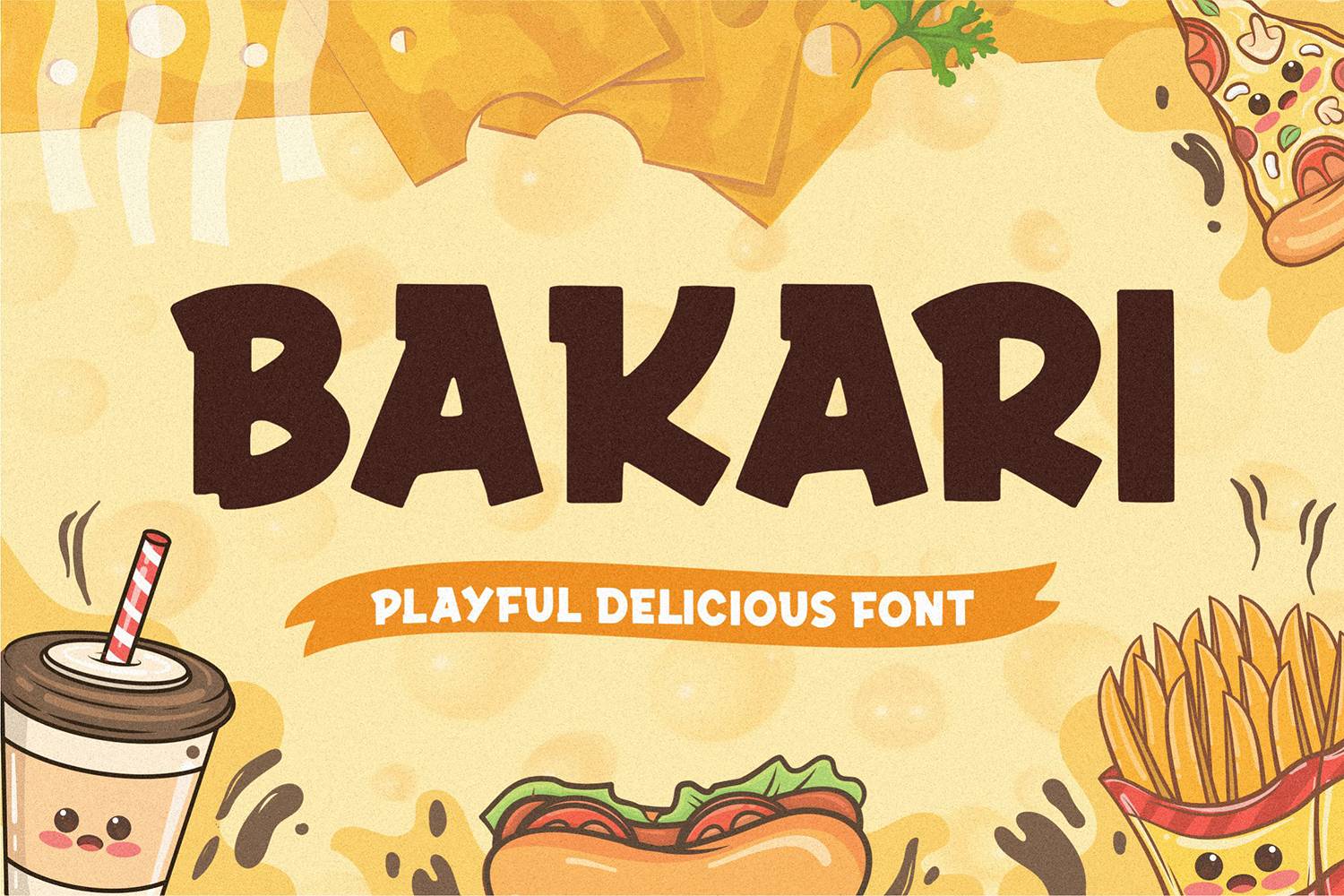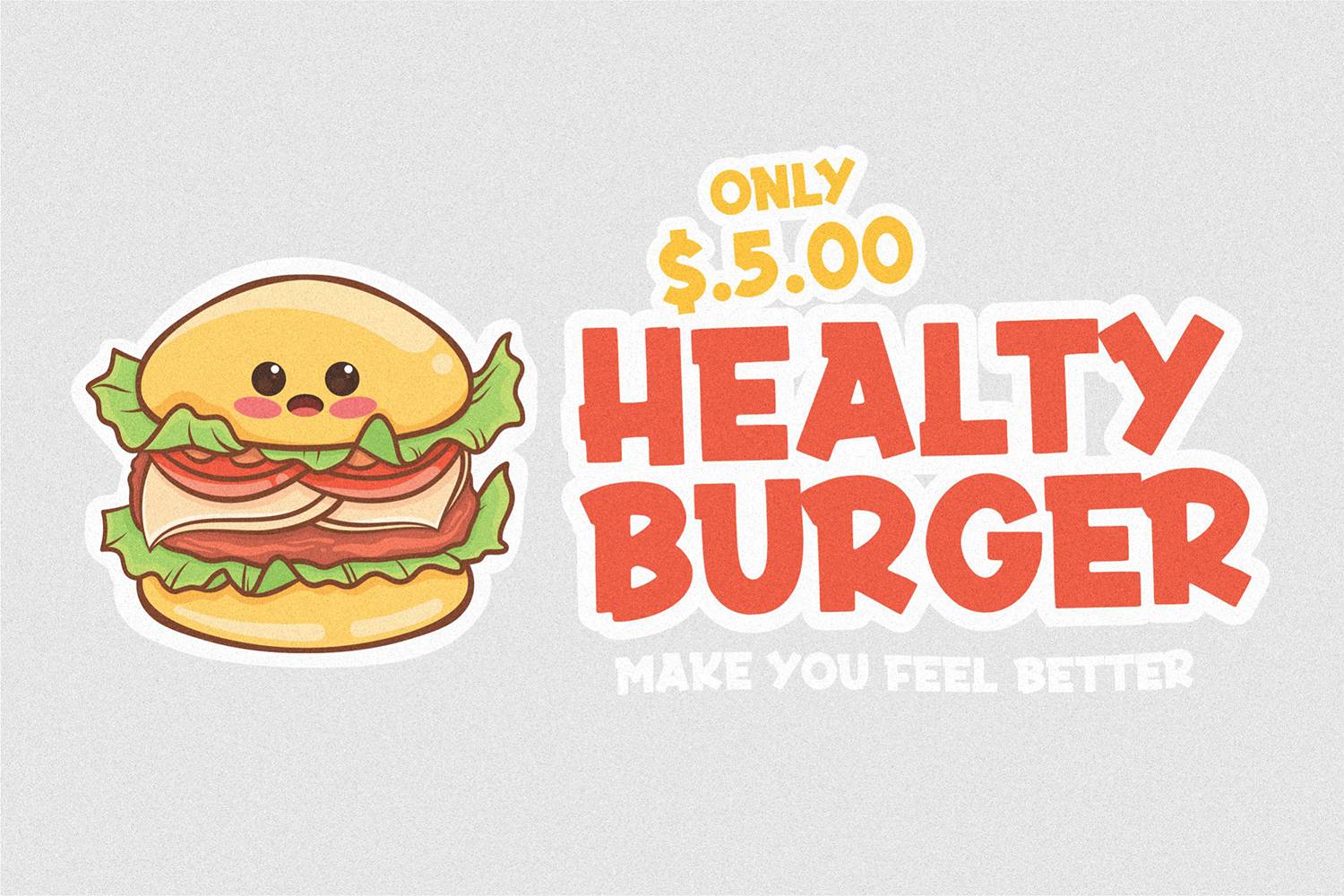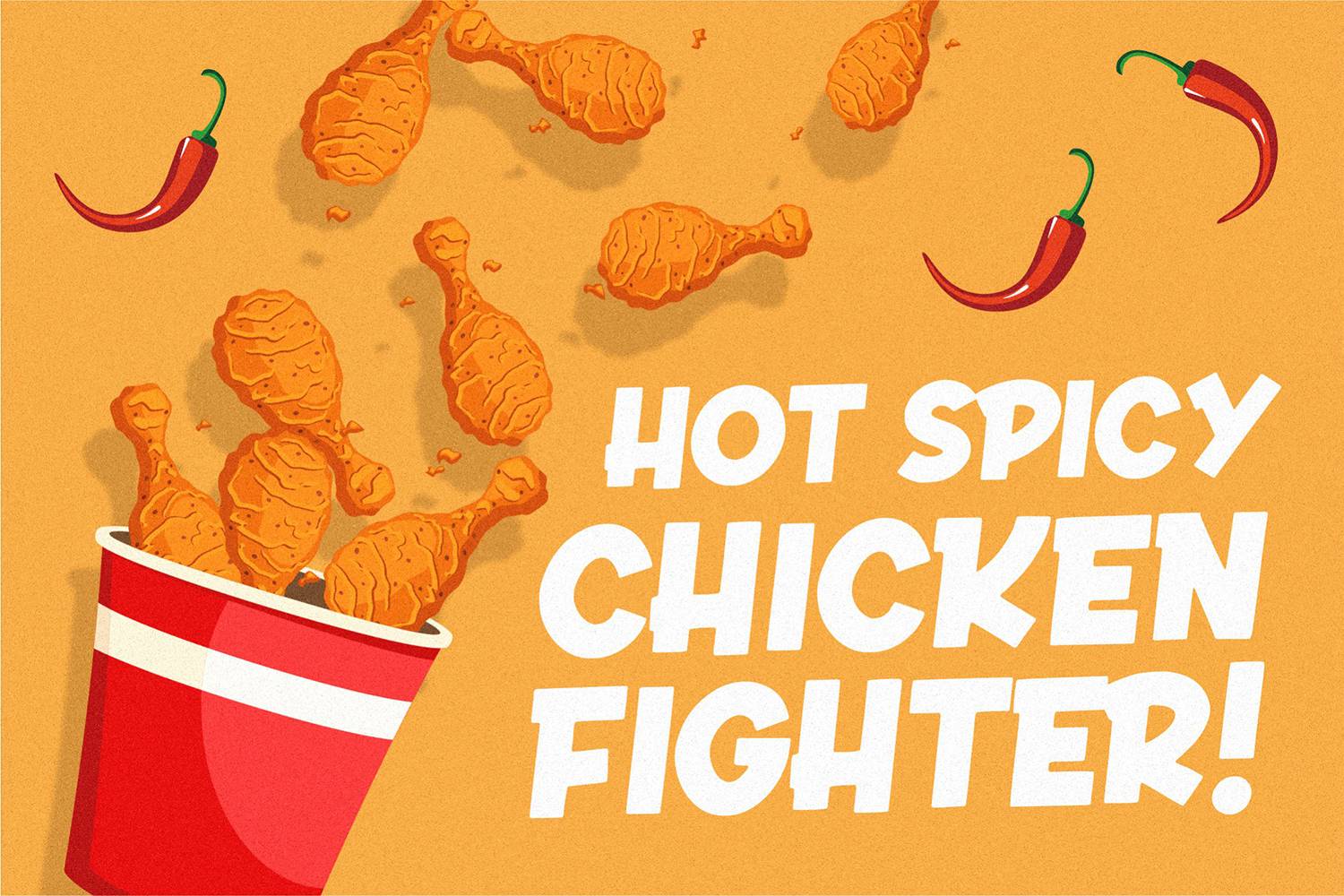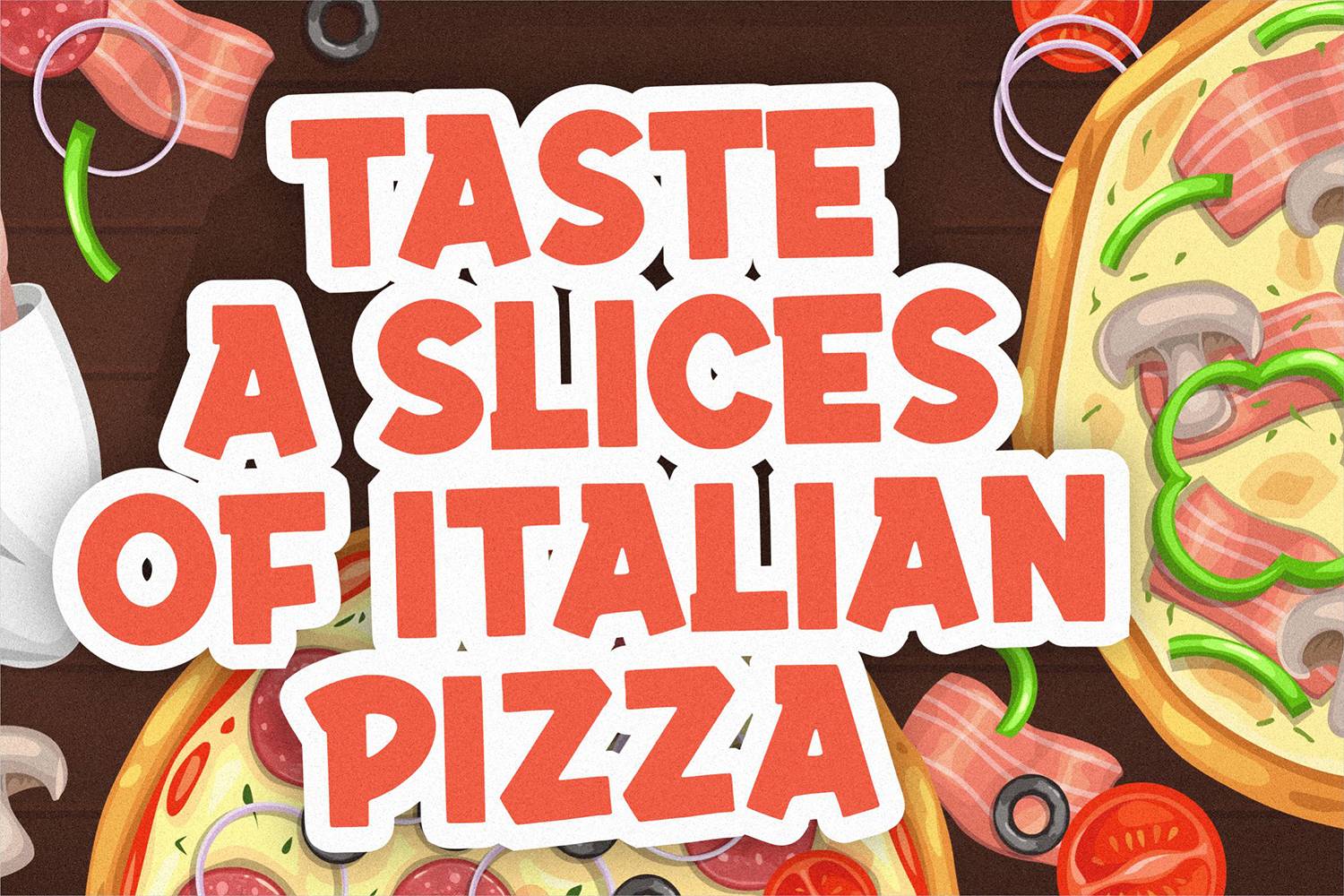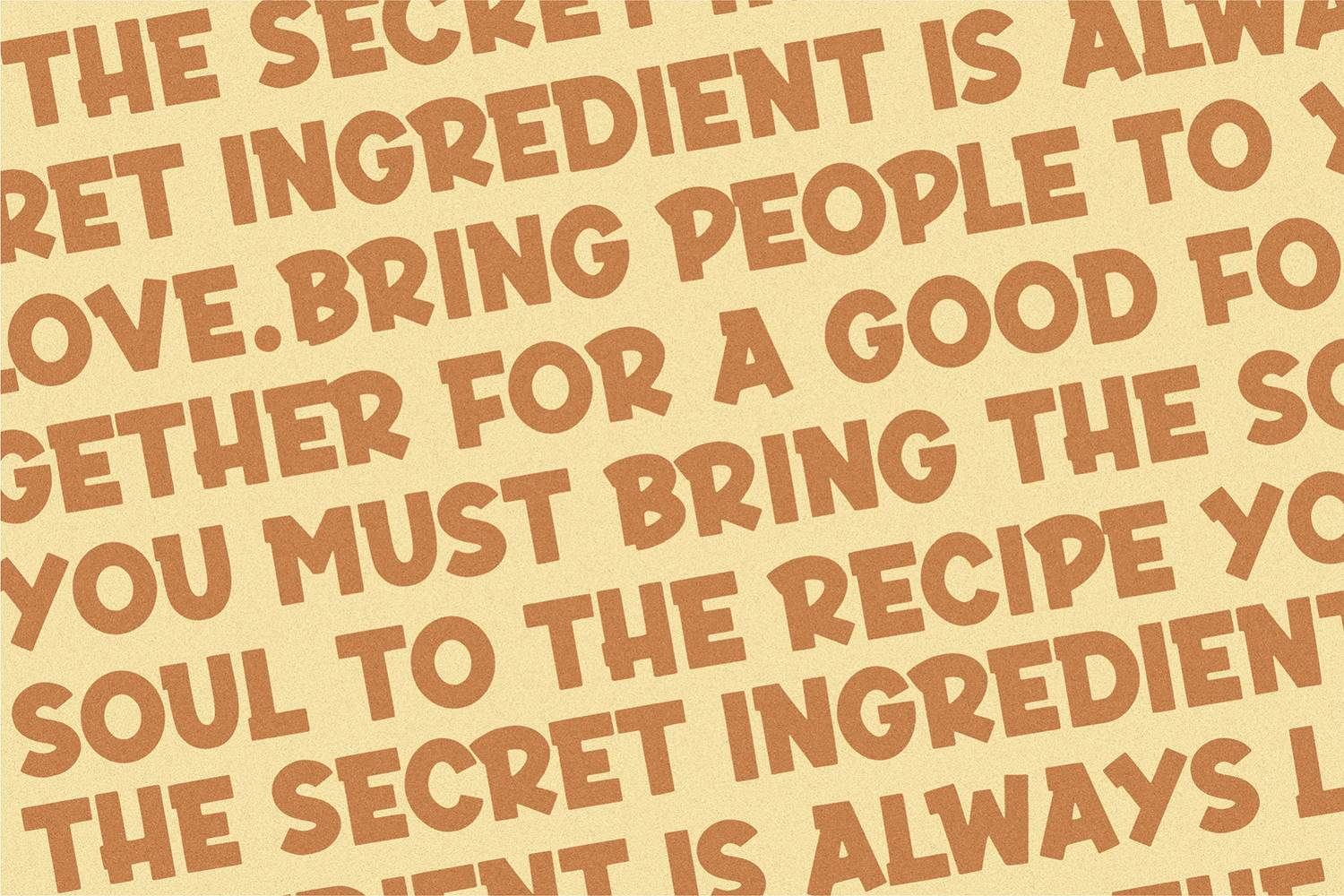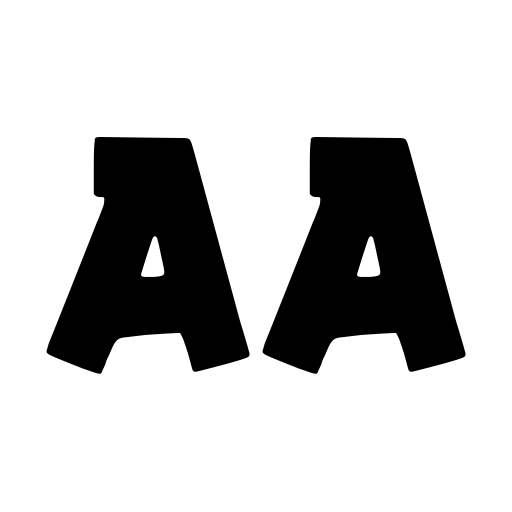
Bakari is a bold, playful sans serif font with a chunky, hand-drawn feel that makes it perfect for fun and informal design projects. Its irregular, slightly quirky letterforms convey a lively and approachable personality, ideal for children’s books, casual branding, and eye-catching headlines. The font’s thick strokes and wide letter spacing ensure strong readability while maintaining an energetic, friendly vibe.
Bakari Font
About Bakari Font
| Font family | Bakari Font |